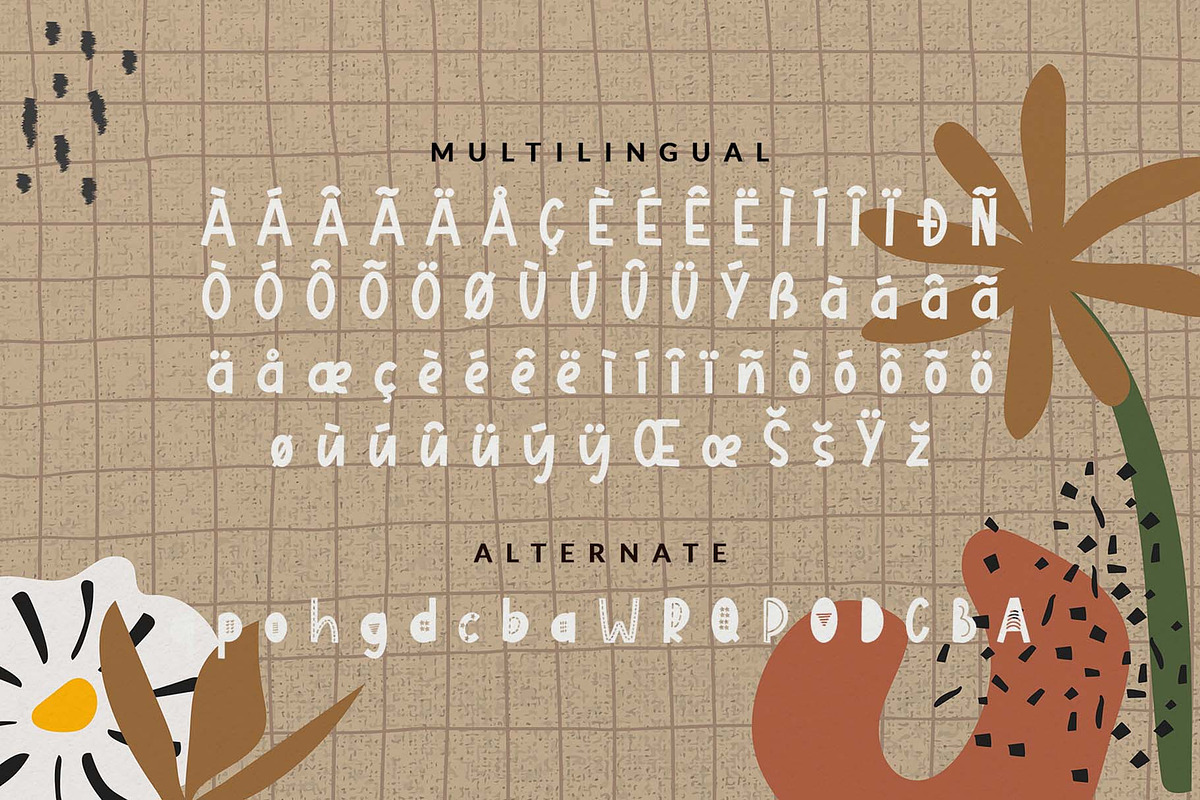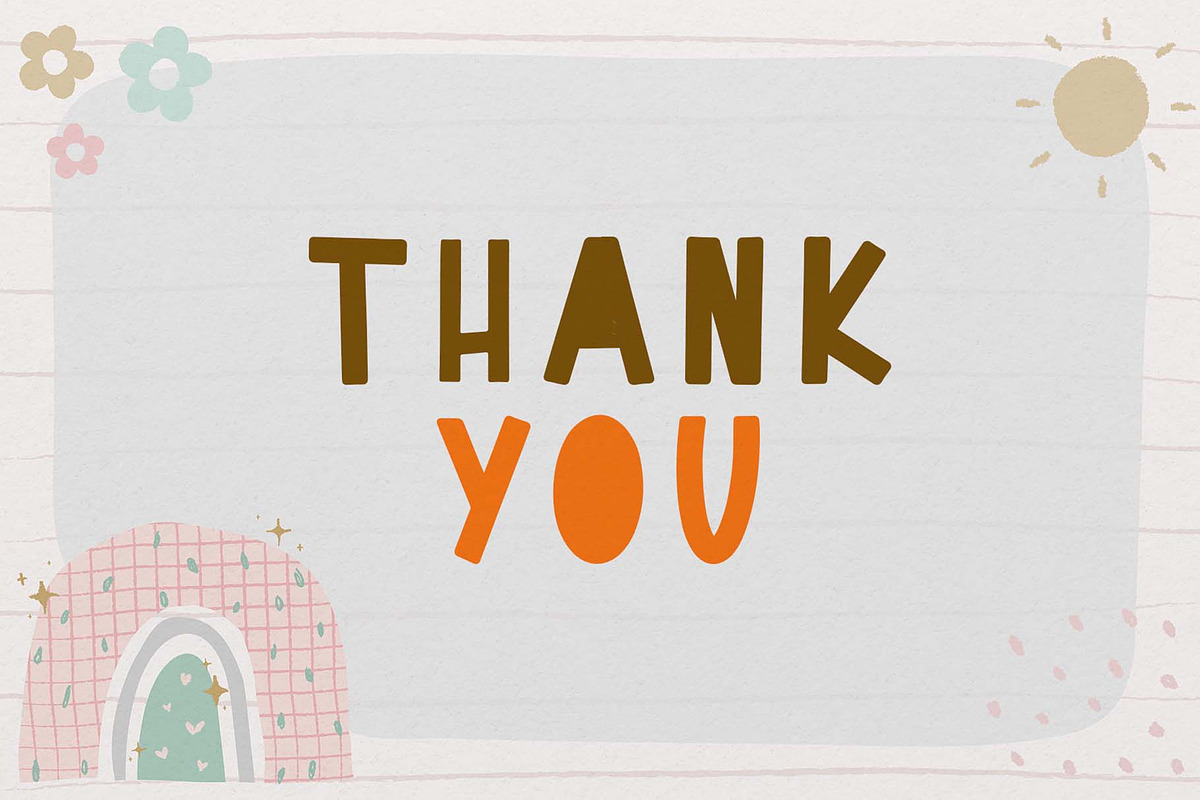
Ring Angle
Ring Angle is a cheery and fun display font, featuring charming characters. Add this font to your most creative ideas, and notice how it makes them stand out